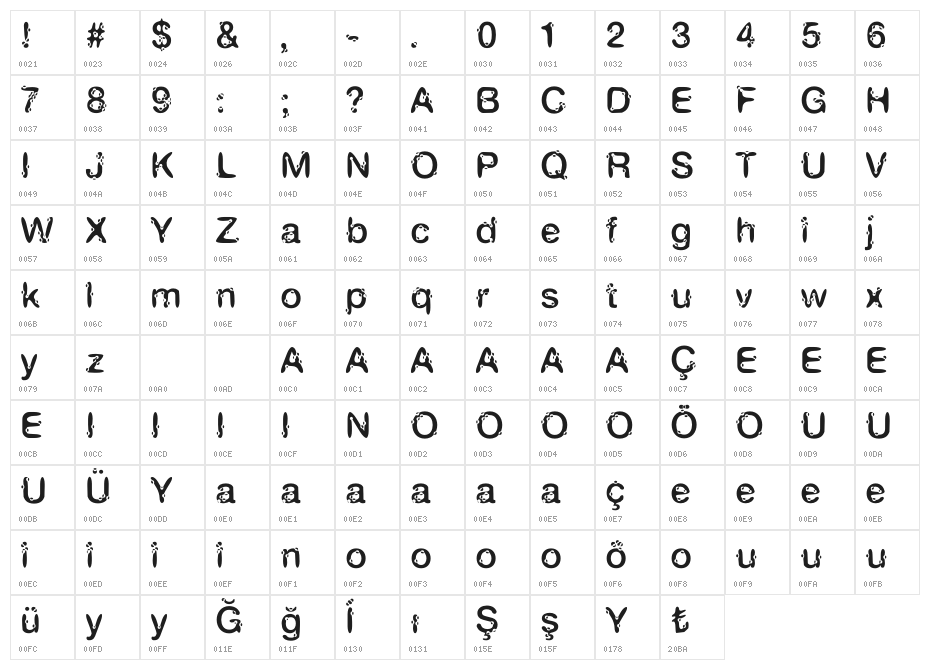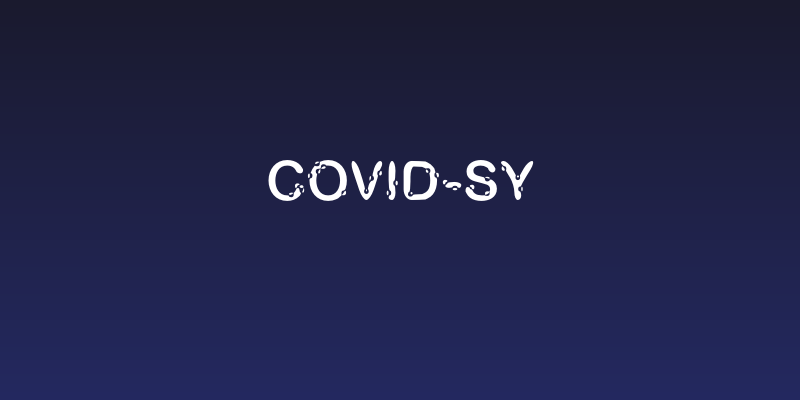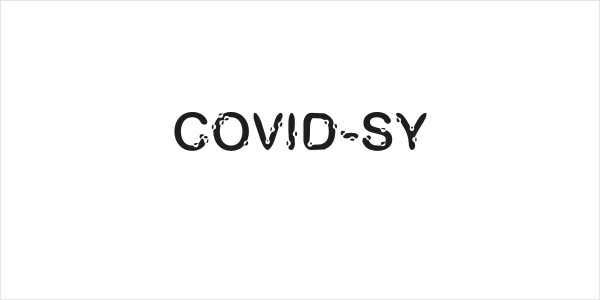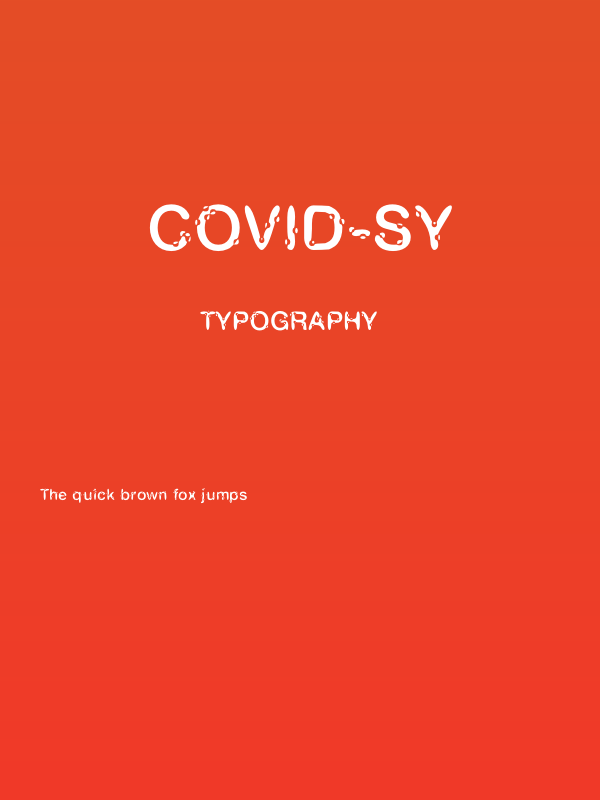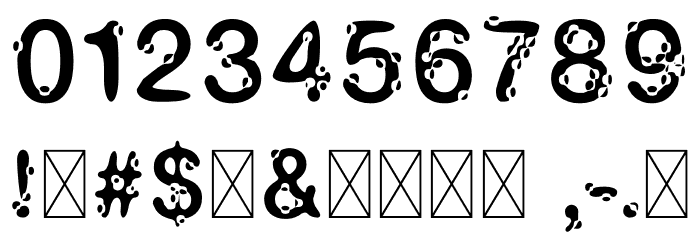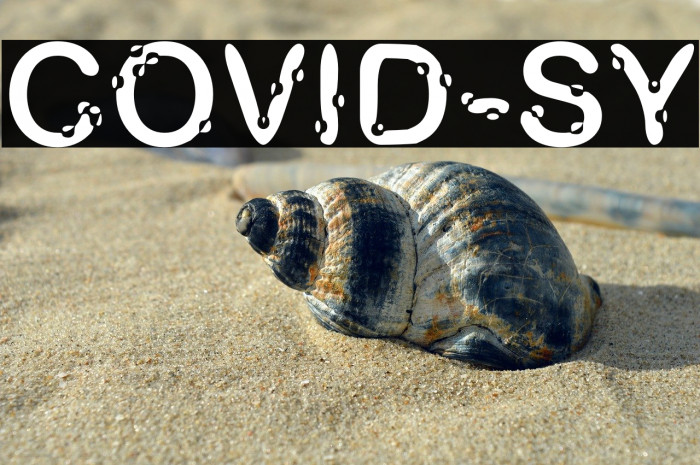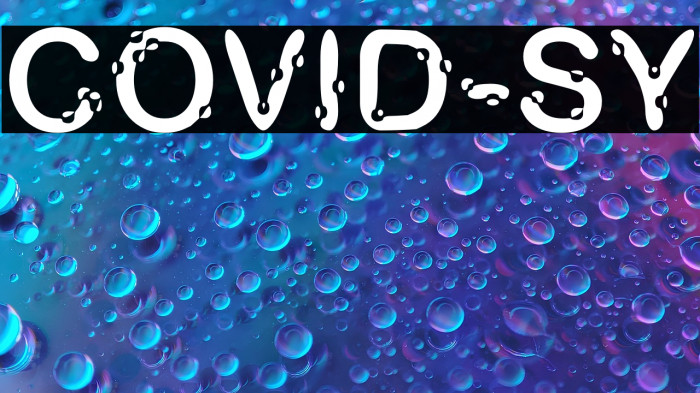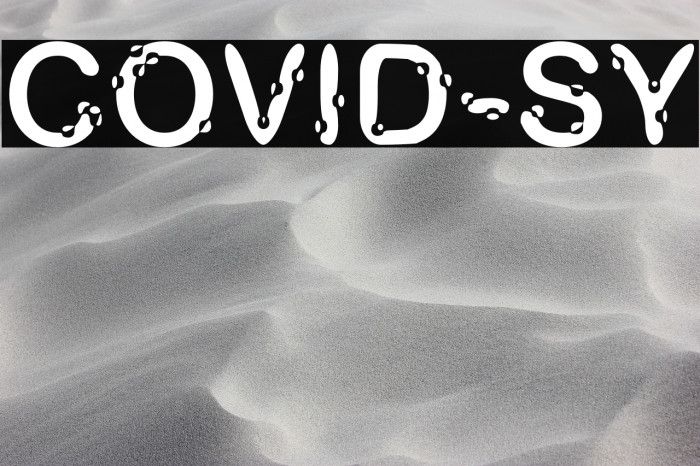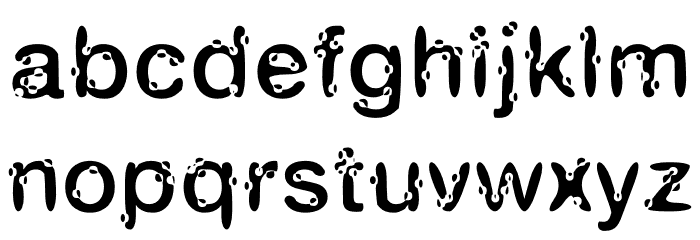
COVID-SY Font
COVID-SY Description
This font features a unique and playful design with irregular, organic shapes that resemble splatters or drips, giving it a dynamic and lively appearance. The characters are bold and rounded, with varying thicknesses that create a sense of movement and energy. This style is reminiscent of graffiti or street art, making it stand out with its unconventional and artistic flair. The font maintains legibility despite its decorative elements, making it suitable for creative projects that require a bold statement.
| Proposed Projects | Ideal for posters, album covers, street art-inspired designs, and creative branding projects. |